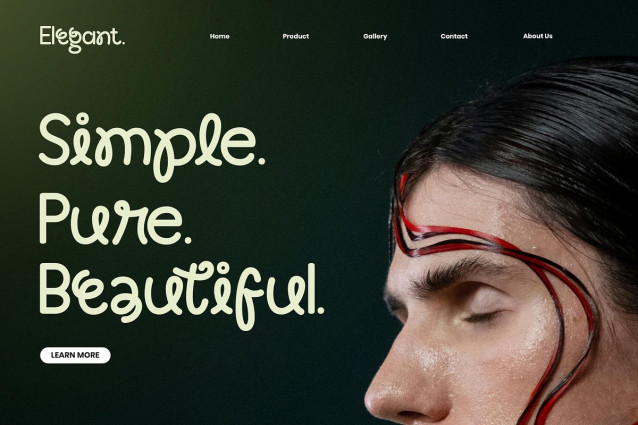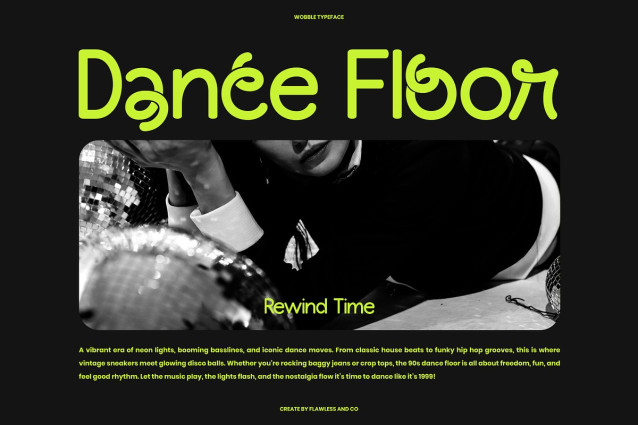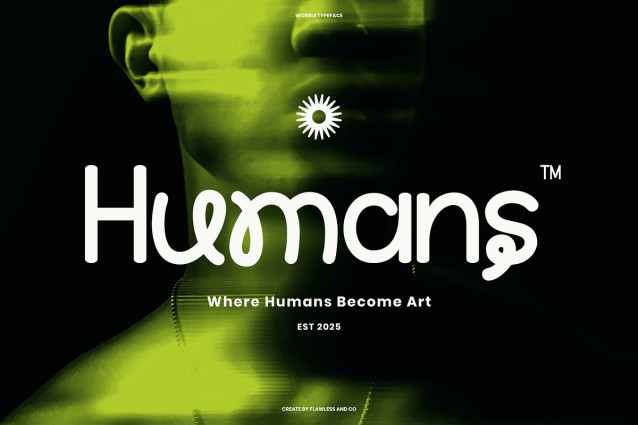
Wobble Font
Wobble Font a quirky and playful experimental sans serif font designed to break the norm. With its bold rhythm, dynamic curves, and twisted letterforms, Wobble delivers a truly unique personality to any creative project. Crafted for designers who dare, Wobble comes with alternate lowercase characters, multilingual support, and endless possibilities. Whether you’re working on branding, posters, editorials, or experimental layouts, Wobble gives your typography an unexpected edge.